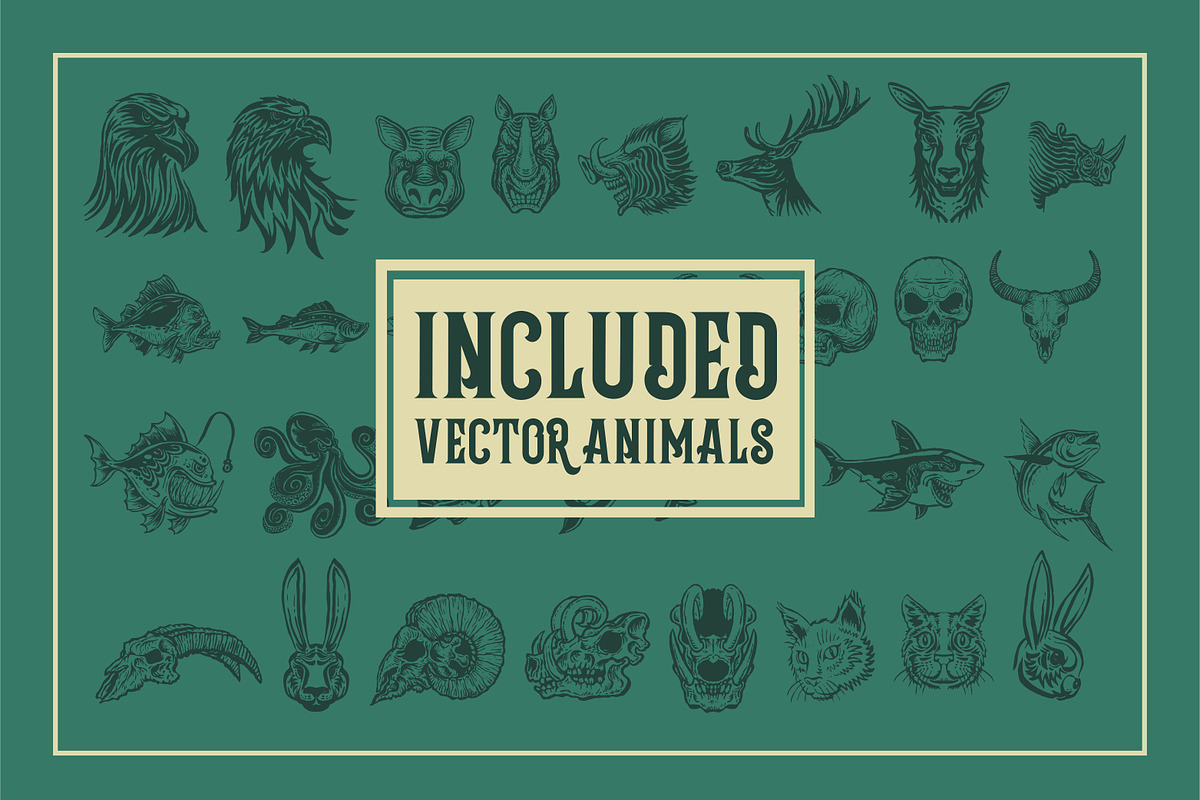
Grantmouth Vol.2 + Extras
The second edition of Grantmouth Typeface comes with various layers to get the effect of each form that is produced from edits. Grantmouth Vol.2 comes with the flexibility of each letter without overriding the original form of Grantmouth and also has extra animal vectors that can be applied to various designs to support your project.
This typeface will be a great armour for your loud poster, social media content, album artwork, 90's vibes design, solid branding, and more.
OPENTYPE FEATURES
- All Alternates